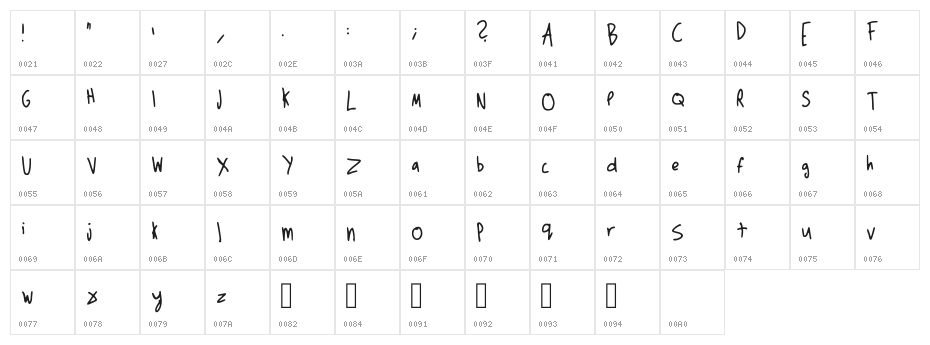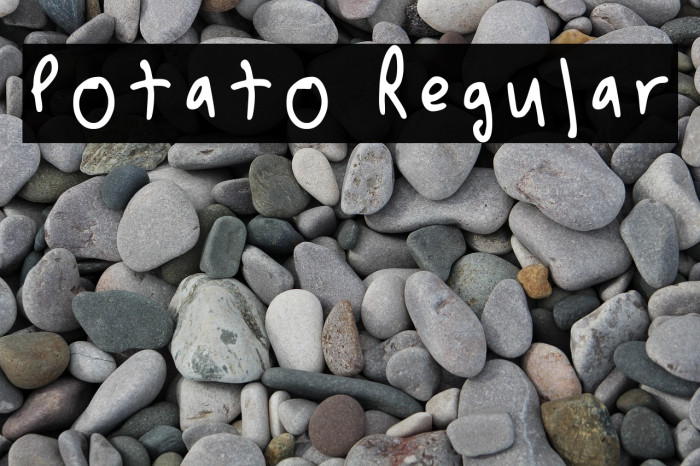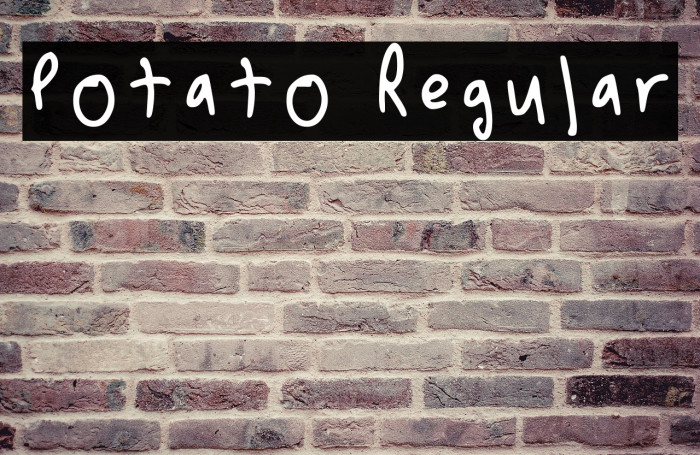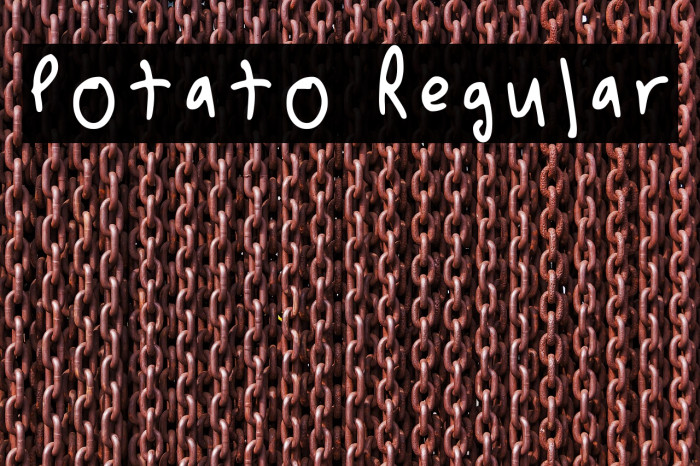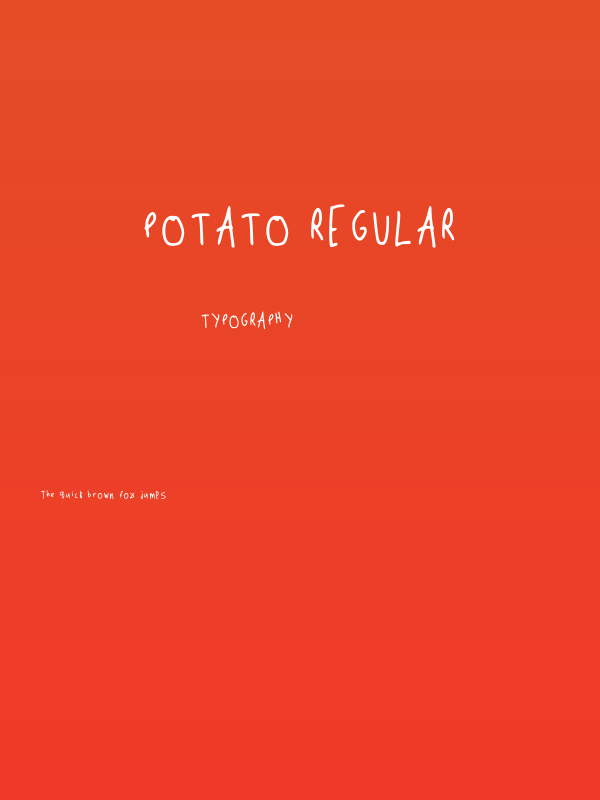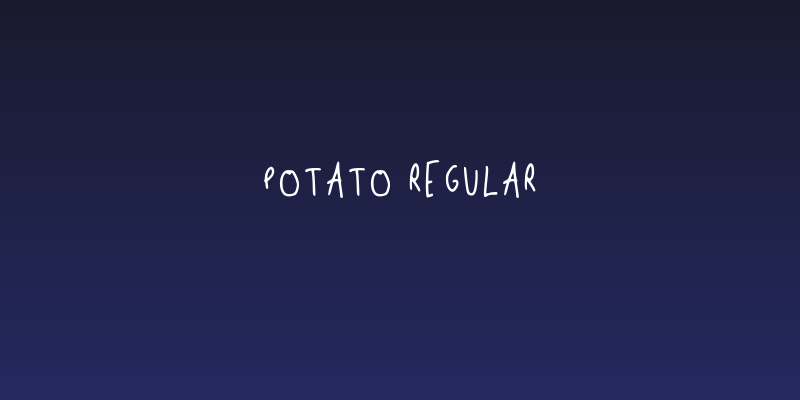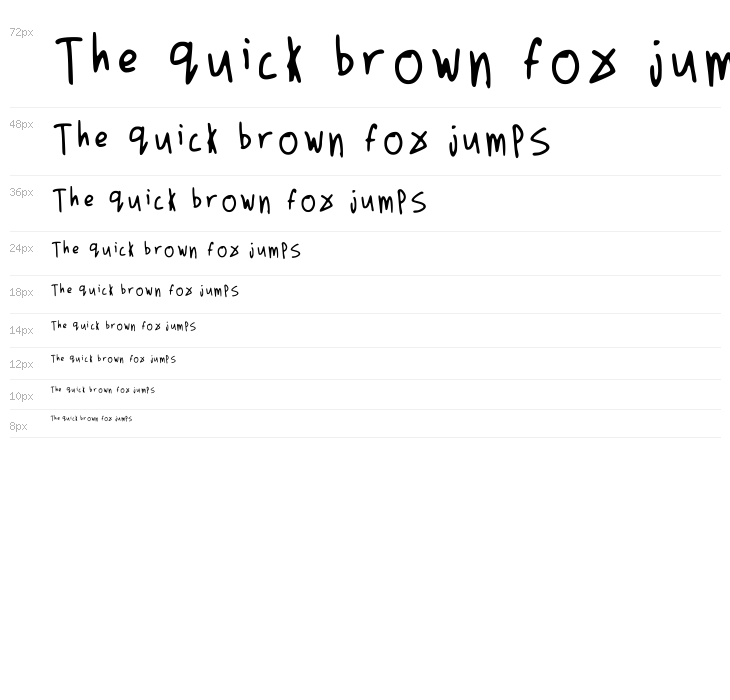
Potato Regular Font
Potato Regular Description
A playful, handwritten font with irregular strokes and a casual appearance.
| Overall Style | Casual, Fun |
| Use Case | Headlines, Informal text |
| Proposed Projects | Greeting cards, casual invitations, children's books. |